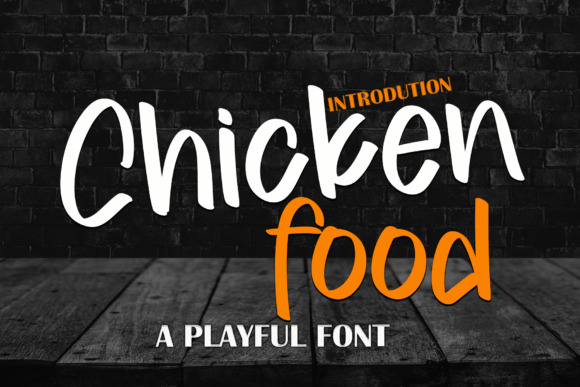
Dive into the world of visual allure with Chicken Food Font, a display font that embodies sophistication and timeless elegance. Inspired by the enduring art of calligraphy, this font exudes a charm that will elevate your designs to new heights.
Picture this: your skincare product labels adorned with the exquisite curves of Chicken Food Font, capturing the essence of luxury and inviting customers to indulge in their skincare rituals. The clean lines and balanced strokes evoke a sense of harmony, creating a perfect canvas for your brand message.
With its contemporary flair, Chicken Food Font adds a touch of modernity to your packaging, making your products stand out on any shelf. Its versatility extends beyond skincare; its impeccable form lends itself effortlessly to branding, logos, and any project where a touch of sophistication is desired.
Imagine the impact of your website headers, social media graphics, or marketing materials when adorned with Chicken Food Font. Its captivating presence will draw attention and convey a sense of exclusivity, leaving a lasting impression on your audience.
Embrace the power of visual communication with Chicken Food Font. Its timeless beauty and contemporary appeal will transform your designs into works of art, captivating your customers and propelling your brand to new heights of success.
Indulge in the world of Chicken Food Font today and witness the transformative power of exceptional typography.